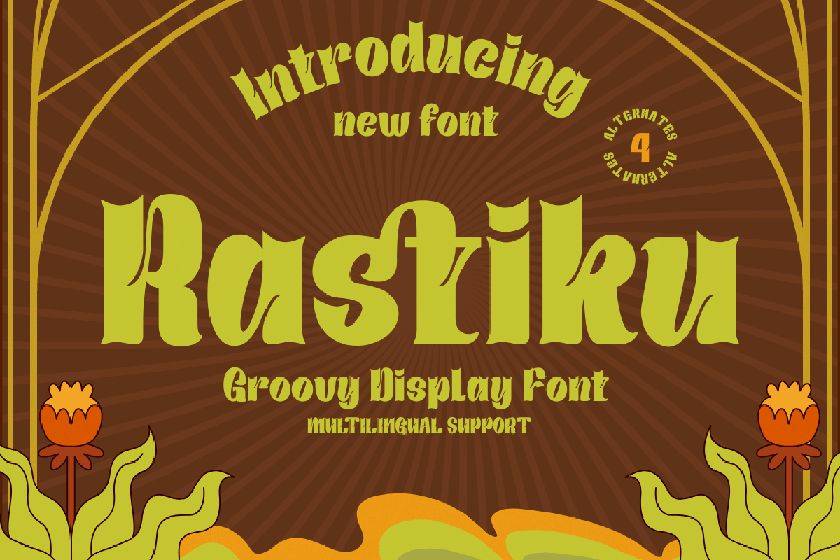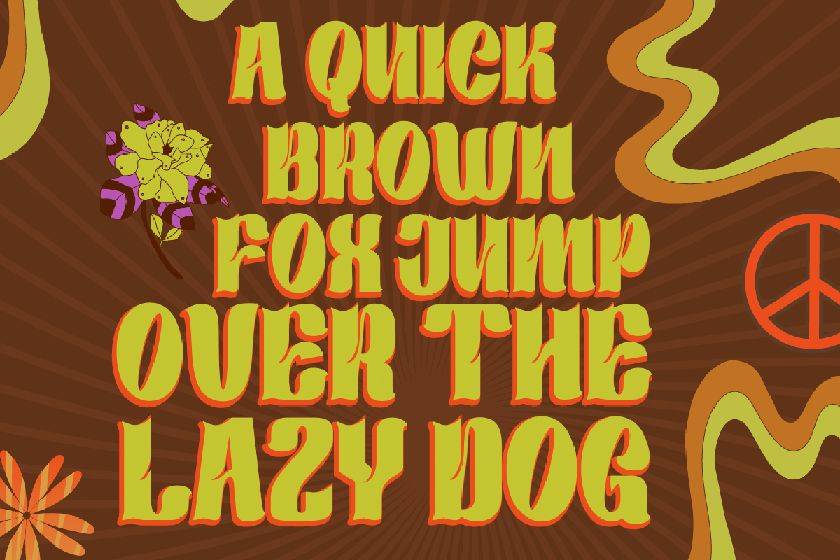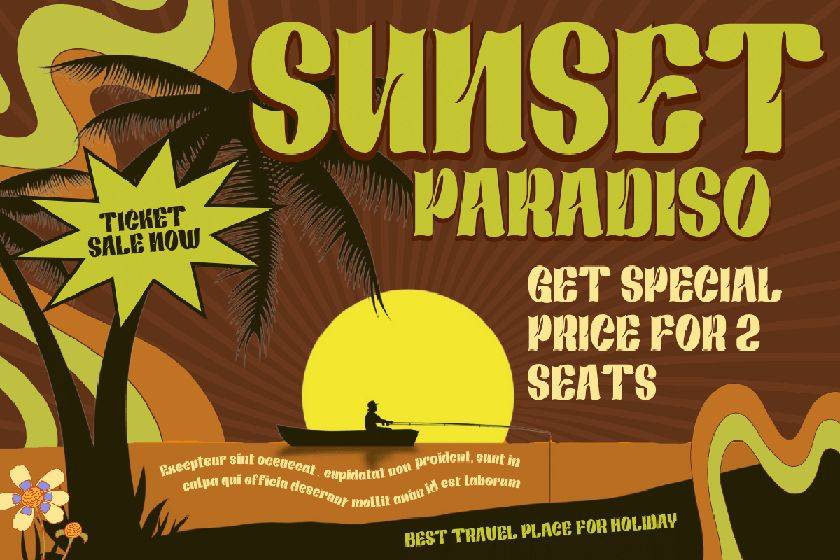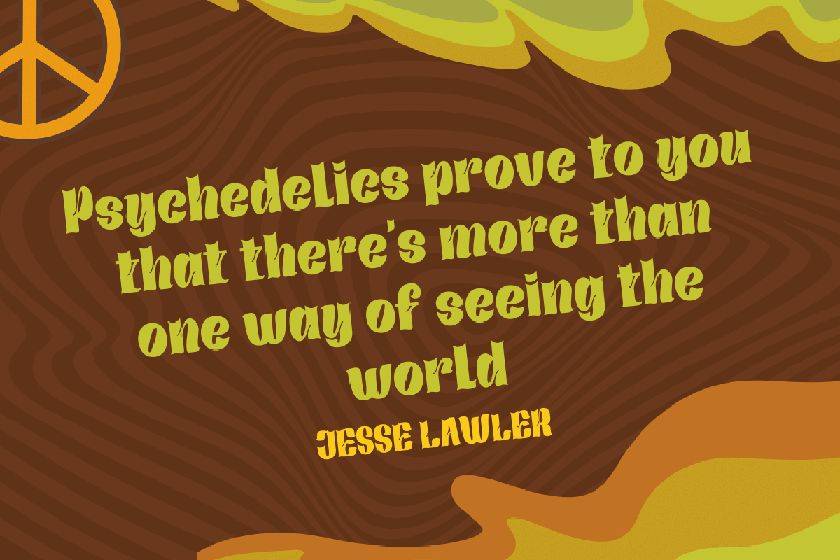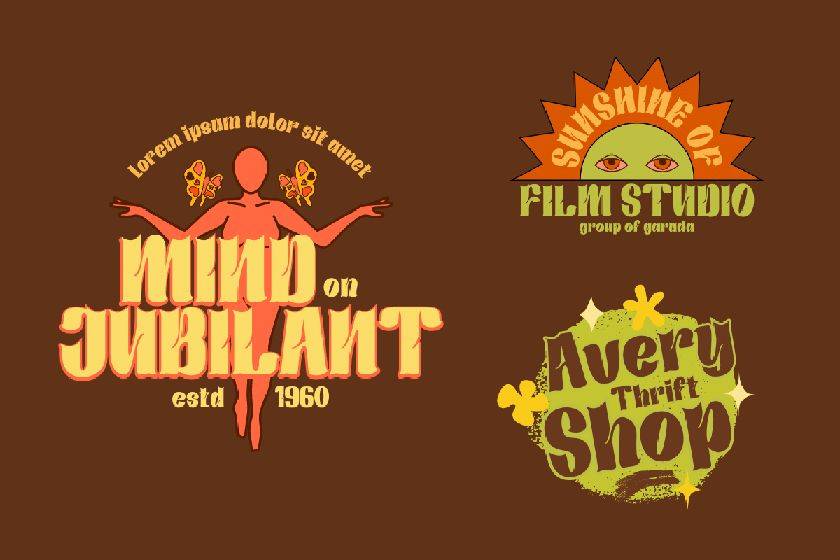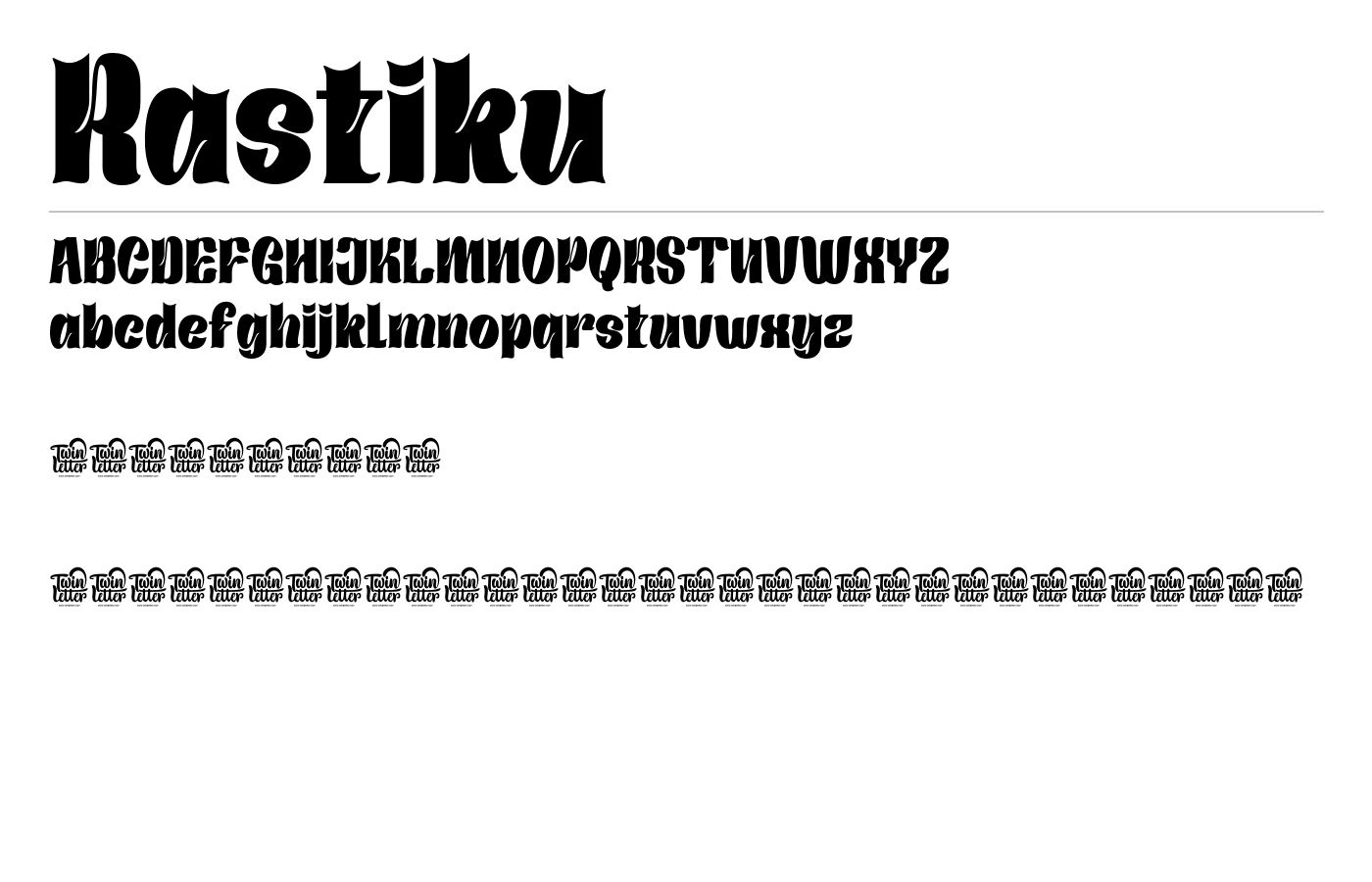
Rastiku is a bold, condensed serif font with a distinctive vintage flair, characterized by high contrast between thick and thin strokes and unique, sharply bracketed serifs. Its playful yet strong letterforms combine an old-style charm with a modern twist, making it ideal for eye-catching headlines, logos, and branding that seek to convey personality and impact. This font works especially well in creative packaging and editorial designs where a dramatic, memorable aesthetic is desired.
Rastiku Font
About Rastiku Font